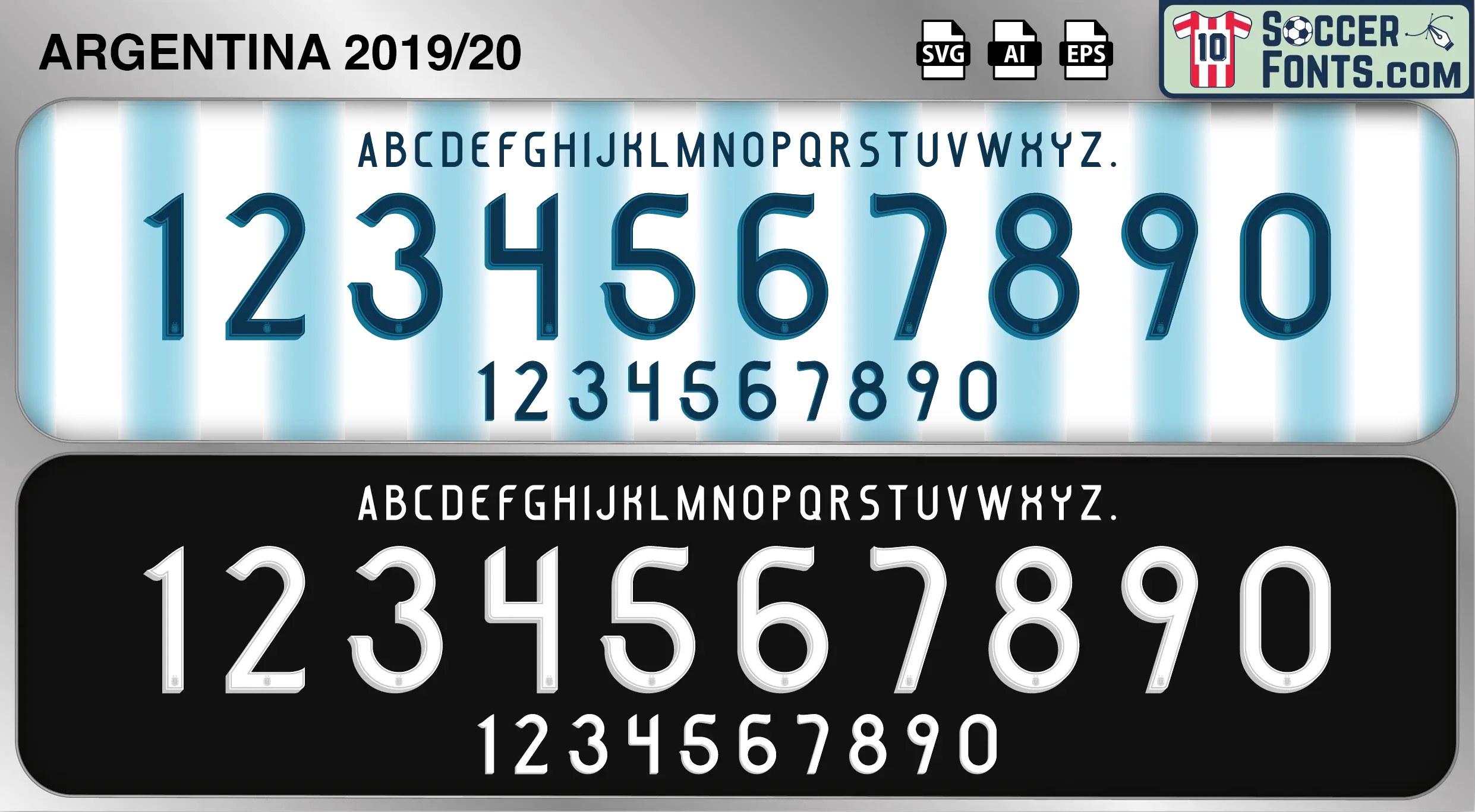
Argentina 2019-20 Font
The Argentina 2019-20 font is an editable soccer jersey lettering design in vector format inspired by the Argentina kit style used during the 2019-20 football seasons. This football font artwork is prepared for football shirt recreations, custom jersey projects, football kit mockups and sports graphic design workflows.
The 2019-20 era continued Argentina’s development under Lionel Scaloni as the national team focused on building a competitive squad for future tournaments. Lionel Messi remained the central figure of the team, supported by emerging players such as Lautaro Martínez, Rodrigo De Paul, Giovani Lo Celso and Leandro Paredes. Although international football schedules were disrupted during 2020, Argentina continued laying the foundations for a new generation capable of challenging for major titles. The period represented an important stage in creating a balanced team built around tactical organization, collective effort and world-class individual talent.
The Argentina 2019-20 font became associated with the formation of the squad that would soon achieve major international success. Argentina shirts from this era remain significant because they represent the final phase of preparation before one of the most successful tournament cycles in the nation’s recent history. The Argentina 2019-20 font reflects a period of steady growth and development, capturing the emergence of a team that would soon transform Argentina’s fortunes on the international stage and reconnect supporters with genuine championship ambitions.